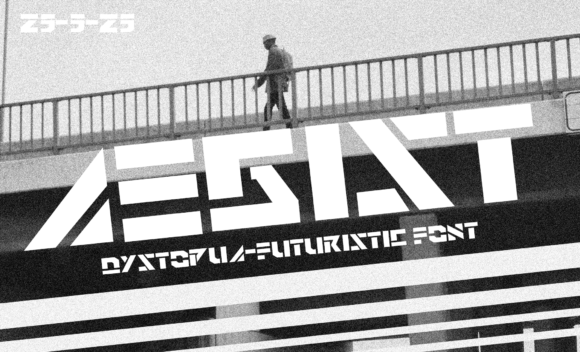
Journey into the Realm of Cyberpunk and Futurism with Aegist Font: The Epitome of Modernity
In a world craving distinctiveness and visual impact, we present Aegist Font – a display typeface that shatters boundaries and transports your designs to a realm of dystopia and cyberpunk. Its sleek and modern aesthetics, inspired by the enigmas of robots, the profoundness of the matrix, and the enigmatic essence of Y2K, will captivate your audience and elevate your creations to new heights of fascination.
With Aegist at your fingertips, the power to command attention and leave an indelible mark lies within your grasp. Its meticulously crafted letterforms, imbued with futuristic flair, are designed to accentuate critical information, transform headlines into captivating narratives, and forge titles that resonate long after they are encountered. Unleash your creativity and witness the transformation of ordinary designs into captivating masterpieces.
Immerse yourself in the boundless versatility of Aegist. It seamlessly adapts to diverse mediums, becoming an indispensable tool for game developers seeking to inject a futuristic ambiance, presentation designers aiming to capture undivided attention, and artists and crafters yearning to infuse their creations with a cutting-edge aura. Allow Aegist to be your creative companion, pushing the boundaries of expression and leaving an indelible mark on the digital landscape.
Aegist is more than just a font; it's a testament to the boundless possibilities of modern design. Its very essence embodies the spirit of innovation, urging you to transcend traditional boundaries and embrace the allure of the future. Let Aegist ignite your imagination and embark on a typographic odyssey that will redefine your creative endeavors.